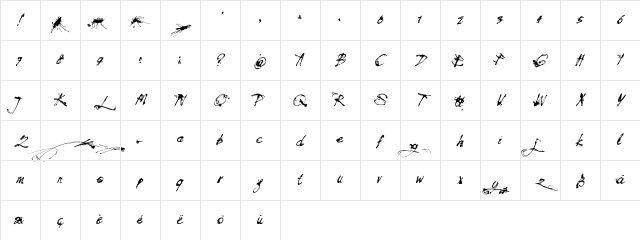
Mosquito Italic
Foundry: Piet Brantjes
Designer: Piet Brantjes
Design Context for Mosquito
Mosquito is a composed and adaptable typeface that performs quietly and consistently across a wide range of design contexts. The slanted form adds forward momentum and visual energy.
Pro Tip: Use Mosquito for emphasis, pull quotes, and subheadings where its slanted energy can add rhythm to the layout.